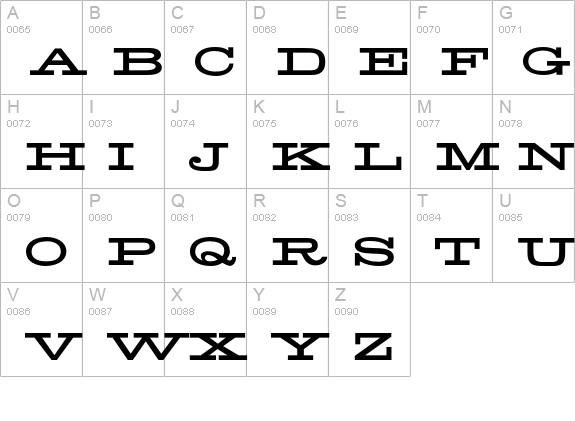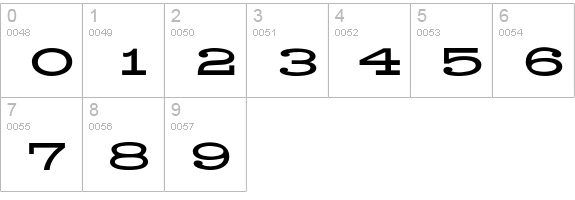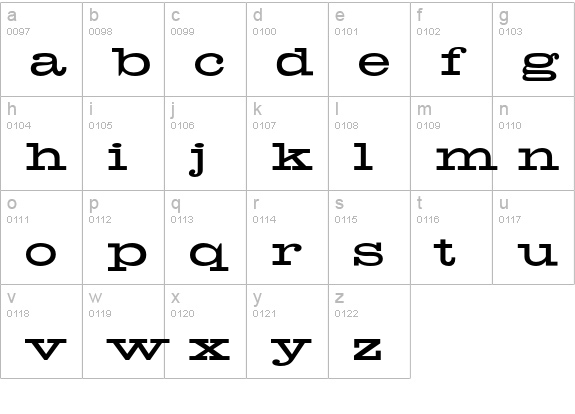
Helenic-Ext Font Details
Introducing Helenic-Ext, a meticulously crafted font that effortlessly combines elegance and modernity. This typeface is the perfect choice for those seeking a harmonious balance between classic and contemporary design. With its impeccable letterforms, Helenic-Ext exudes a timeless charm that captivates the eye. What sets Helenic-Ext apart is not only its stunning aesthetics, but also its versatility. This font is adept at conveying a wide range of moods and messages, making it an invaluable tool for designers, creatives, and typographers alike. Whether you're working on a sophisticated branding project, a sleek editorial layout, or an eye-catching advertisement, Helenic-Ext is sure to elevate your design to new heights. One of the most remarkable aspects of Helenic-Ext is that it is free. Yes, you read that right – this exceptional font can be freely downloaded at FontsMarket.com. This means that you can enjoy the beauty and functionality of Helenic-Ext without breaking the bank. It's a rare find in the world of typography, where high-quality fonts often come with a hefty price tag. So why wait? Discover the allure of Helenic-Ext and unlock a world of creative possibilities. Download this extraordinary font today at FontsMarket.com and let your designs shine with sophistication, style, and elegance.